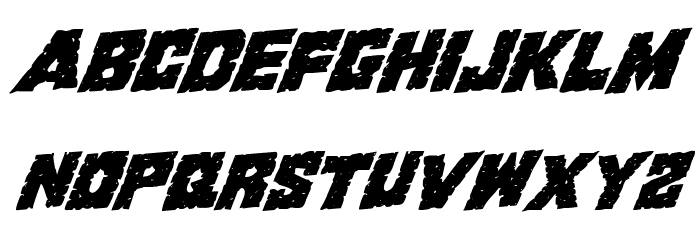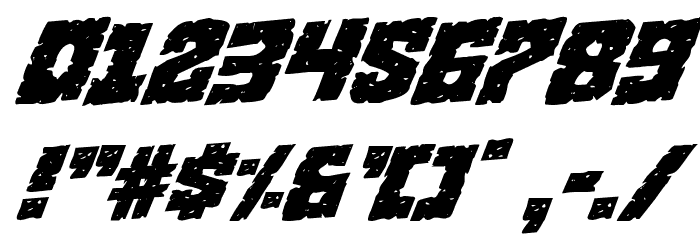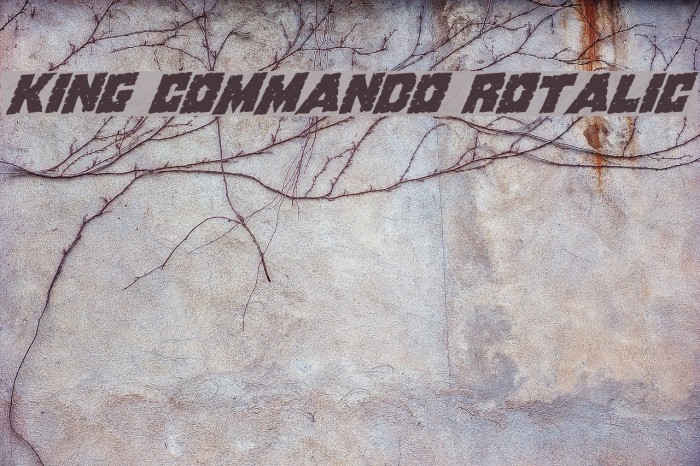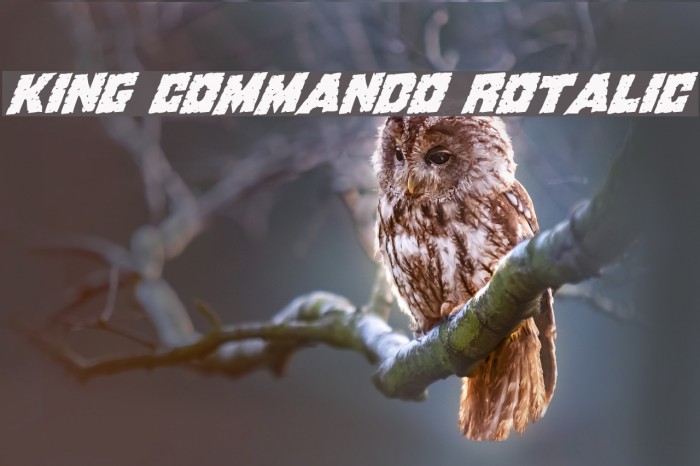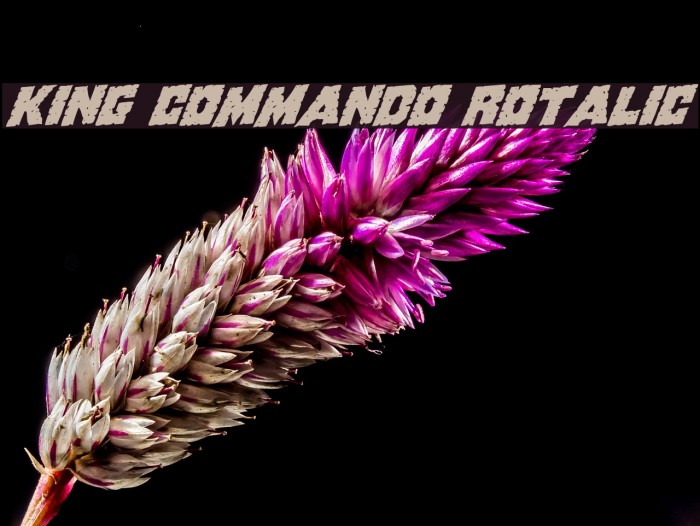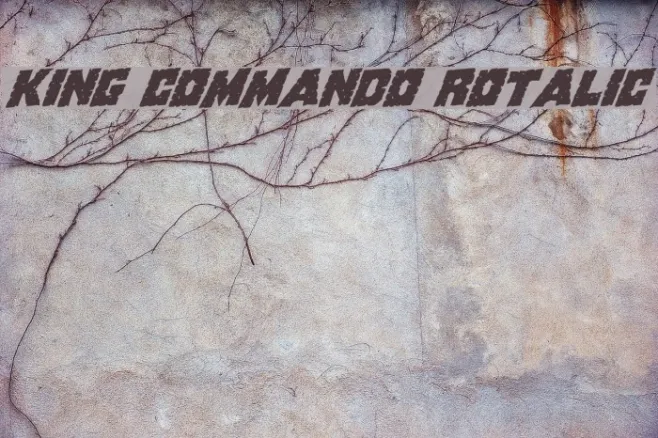
King Commando Rotalic Font
This font features a bold and rugged design, characterized by its distressed and textured appearance. The letters are slanted, giving it a dynamic and energetic feel. Each character is heavily stylized with irregular edges, resembling a stencil or military-inspired aesthetic. The font maintains a consistent weight throughout, with thick strokes that enhance its boldness. The overall design is impactful, making it suitable for attention-grabbing headlines or thematic designs that require a strong visual presence.
A bold, distressed, and slanted font with a rugged, military-inspired aesthetic.
- Proposed Projects: Ideal for military-themed posters, action movie titles, video game covers, and branding that requires a strong, bold statement.